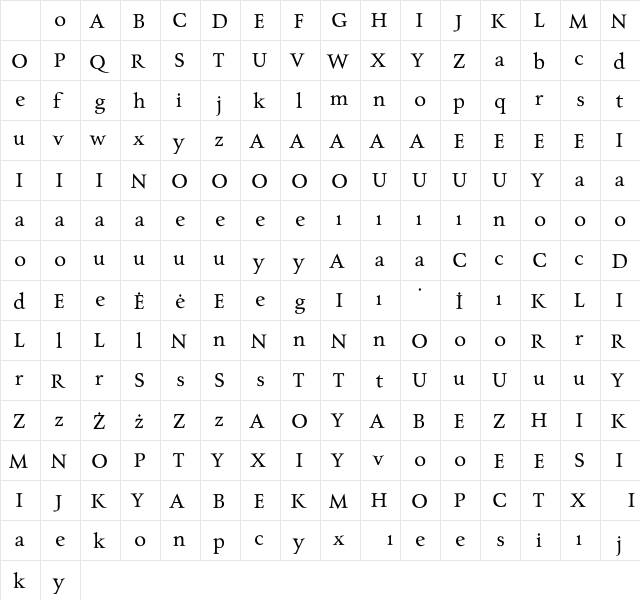
Complete Charpentier Renaissance Pro Regular glyph index. Displaying only characters natively supported by Charpentier Renaissance Pro Regular font.
Charpentier Renaissance Pro is a composed and adaptable typeface that performs quietly and consistently across a wide range of design contexts.
Who designed the Charpentier Renaissance Pro Regular font?